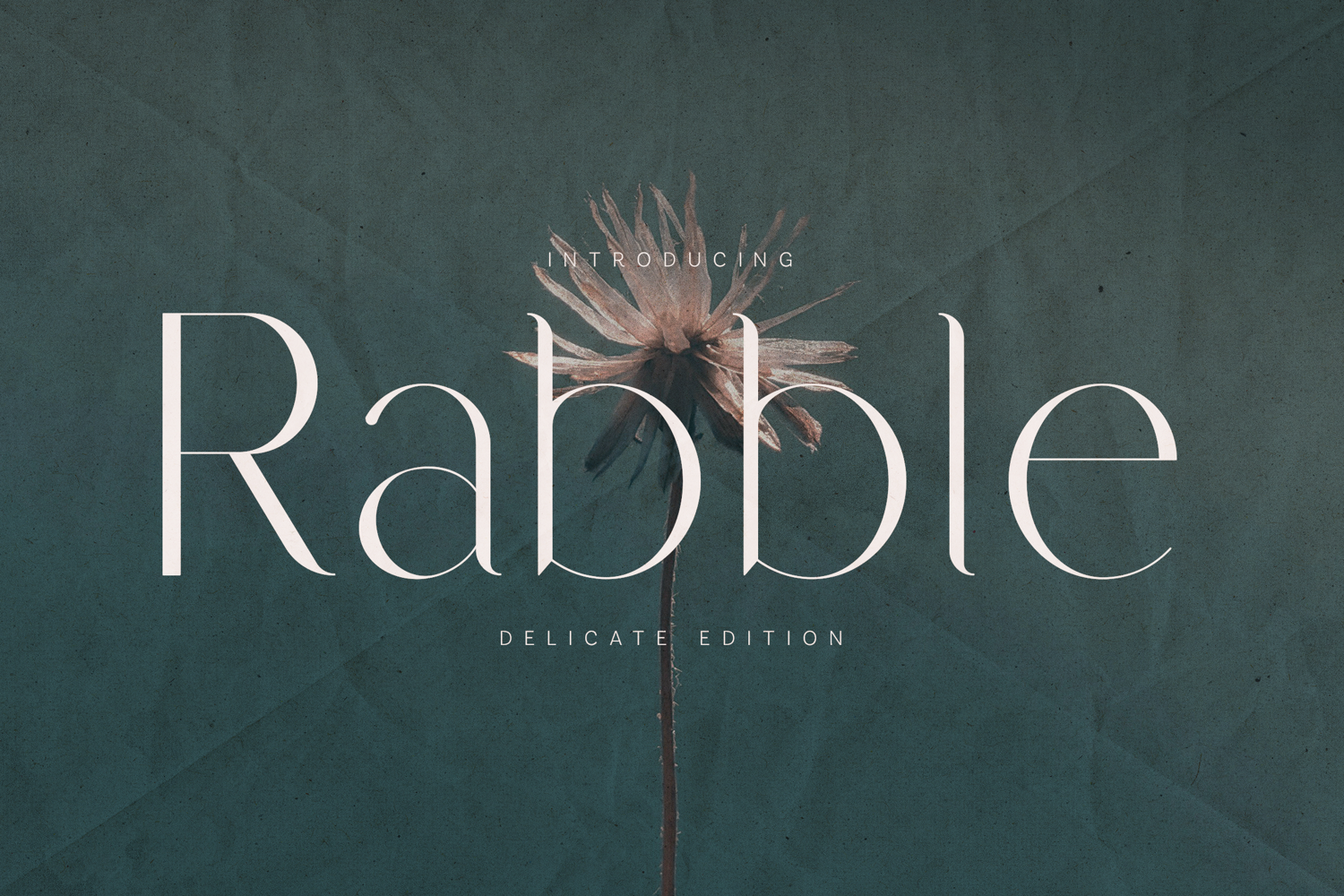
Rabble Delicate Elegant Serif Font
Rabble is a delicate and elegant serif font crafted for refined typography and expressive visual design. Featuring thin strokes, graceful curves, and a soft contemporary feel, Rabble is ideal for editorial layouts, luxury branding, fashion projects, logos, quotes, packaging, and high-end creative work.
The font balances classic serif structure with a modern, airy character, making it perfect for designs that require subtlety, elegance, and emotional depth. Rabble performs beautifully in headlines, short texts, and sophisticated compositions.
Rabble includes a complete character set with multilingual support, numerals, and punctuation, making it suitable for both print and digital applications.
Rabble is designed for creatives who value softness, precision, and timeless elegance in typography.